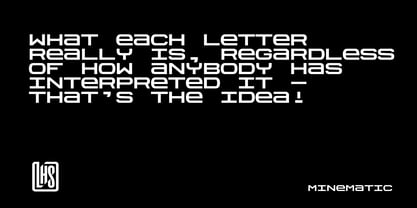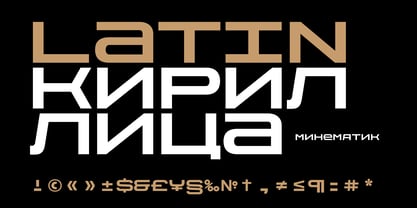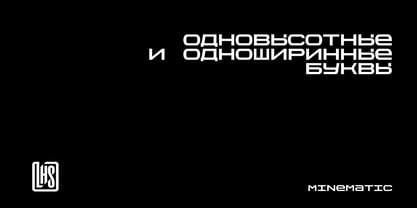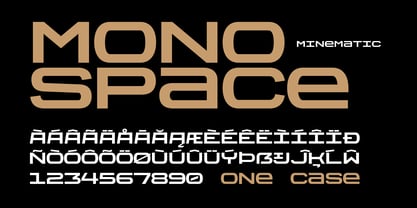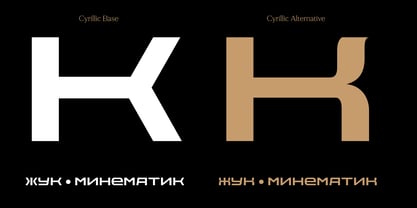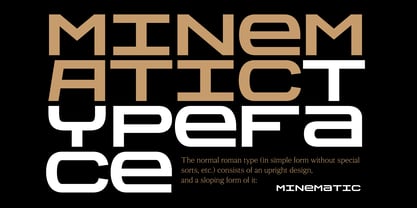
Minematic
by Letterhead Studio-VG
The Minematic Font Family was designed by Valery Golyzhenkov and published by Letterhead Studio-VG. Minematic contains 1 styles. More about this family
The MINEMATIC font is letters that try very hard to be the same height and the same width. Letters with which you can create beautiful monotonous typography, smooth and calm, like a brick wall. Nothing can replace a tightly laid brick — that's it, the golden rule of the Naf-Naf pig. If you need to create something stable, calm, and peaceful, take MINEMATIC, put the words in blocks, and everything will be fine. Put them on websites, make posters, choose for some sustainable brands. Don't get carried away with long texts, 10-15 words is just right.
Designers: Valery Golyzhenkov
Foundry: Letterhead Studio-VG